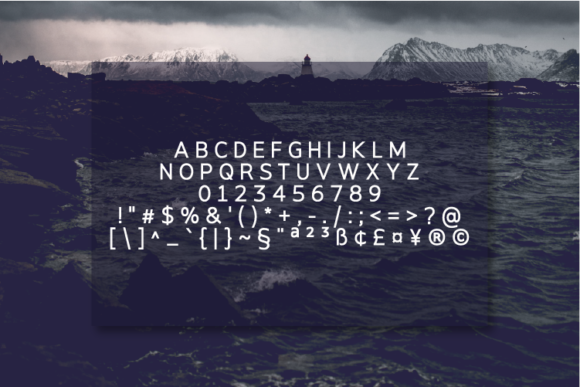
Introduction to Hunzello Bold Font
Have you ever found yourself stuck in front of a blank canvas, searching for the perfect font to bring your creative project to life? As a designer, you know how crucial the right typeface can be in setting the tone and aesthetic of your work. And sometimes, all it takes is one font to make your design shine.
Key Features of Hunzello Bold Font
- High-quality design resource ideal for creative projects and digital designs.
- Perfect for use in digital design projects, including websites, social media graphics, and mobile app interfaces.
- Enhances the overall visual appeal of creative projects with its distinctive and eye-catching font style.
What works well about the Hunzello Bold Font is its clean and modern aesthetic. The font is perfect for creating bold and eye-catching headings, and its free download makes it an excellent addition to any design project. I also appreciate the transparent background, which allows for easy editing and customization.
- ✨ Clean and modern design
- ✨ Perfect for creating bold and eye-catching headings
However, I do have a few limitations to note. The Hunzello Bold Font is a bit limited in terms of font sizes, and it may not be suitable for use in smaller text sizes. Additionally, the font’s bold weight can sometimes make it difficult to read in certain contexts.
The Hunzello Bold Font is ideal for creating eye-catching headings, titles, and slogans. It’s also suitable for use in logos, branding materials, and other creative projects that require a bold and striking font.